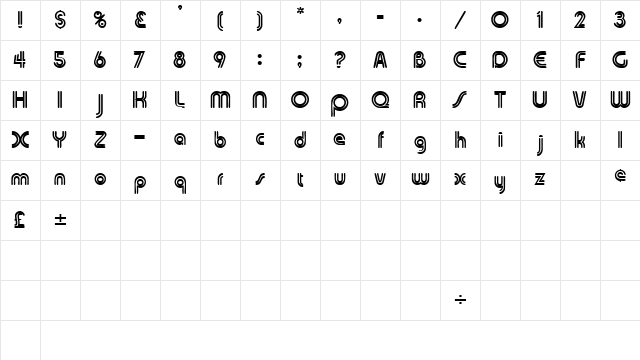
TwinkieDisplaySSK Regular
Design Context for TwinkieDisplaySSK
TwinkieDisplaySSK is built around its visual character rather than neutral utility - its distinctive forms are designed to make an impression at display sizes.
Font Pairing: Pair with a clean neutral sans-serif for body copy to let TwinkieDisplaySSK's character lead without overwhelming the composition.
Pro Tip: Use TwinkieDisplaySSK exclusively at display sizes - it was designed to be seen, not read at length. Let a neutral companion handle body copy.